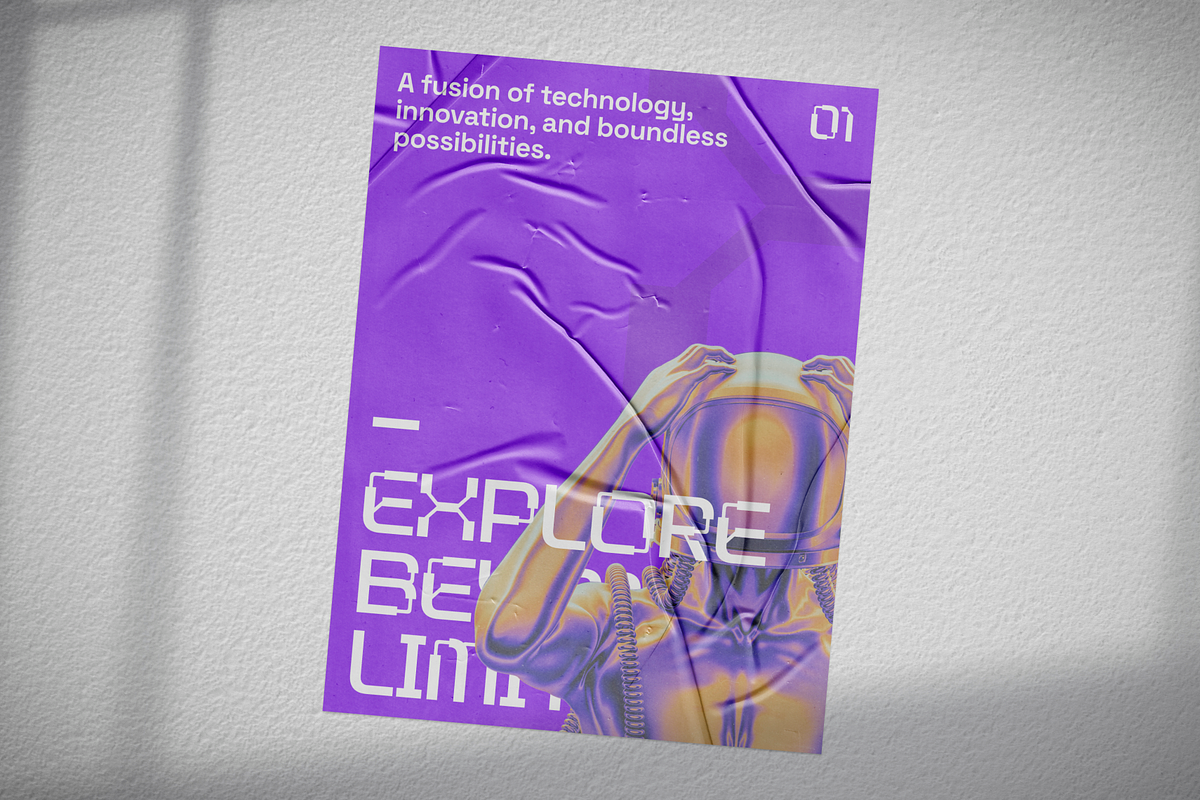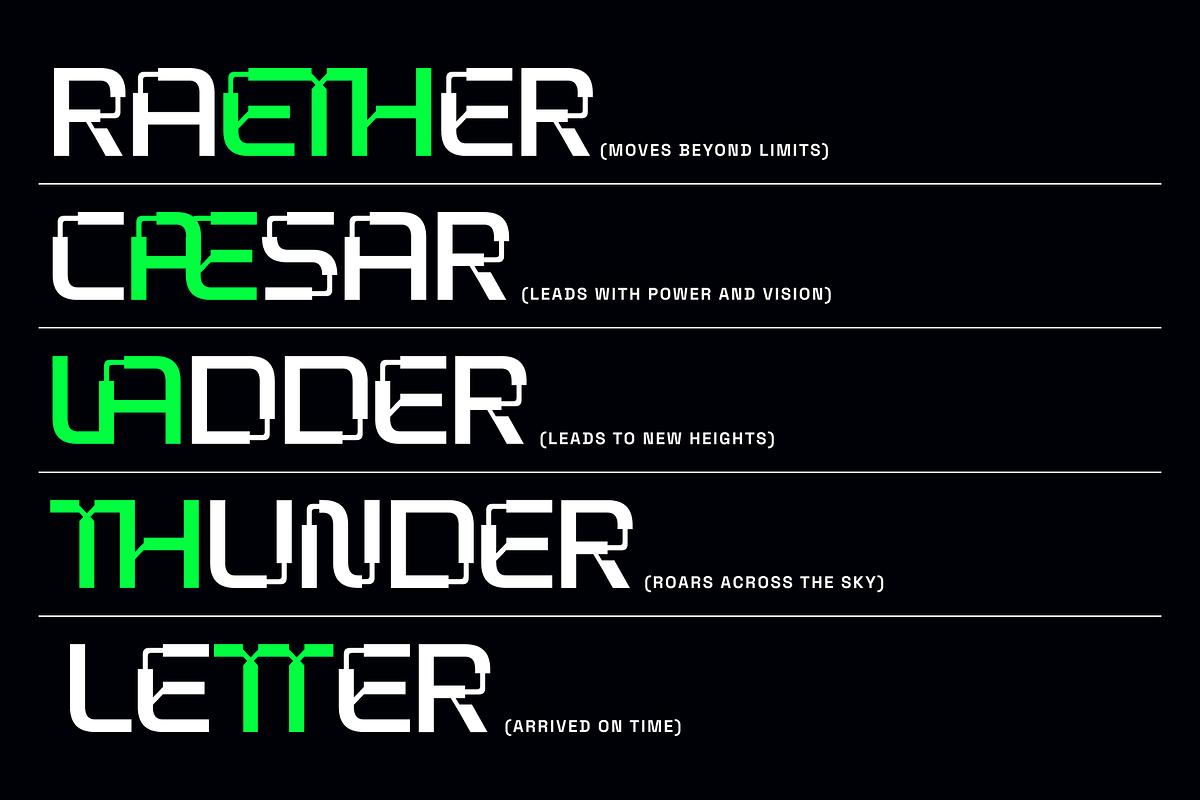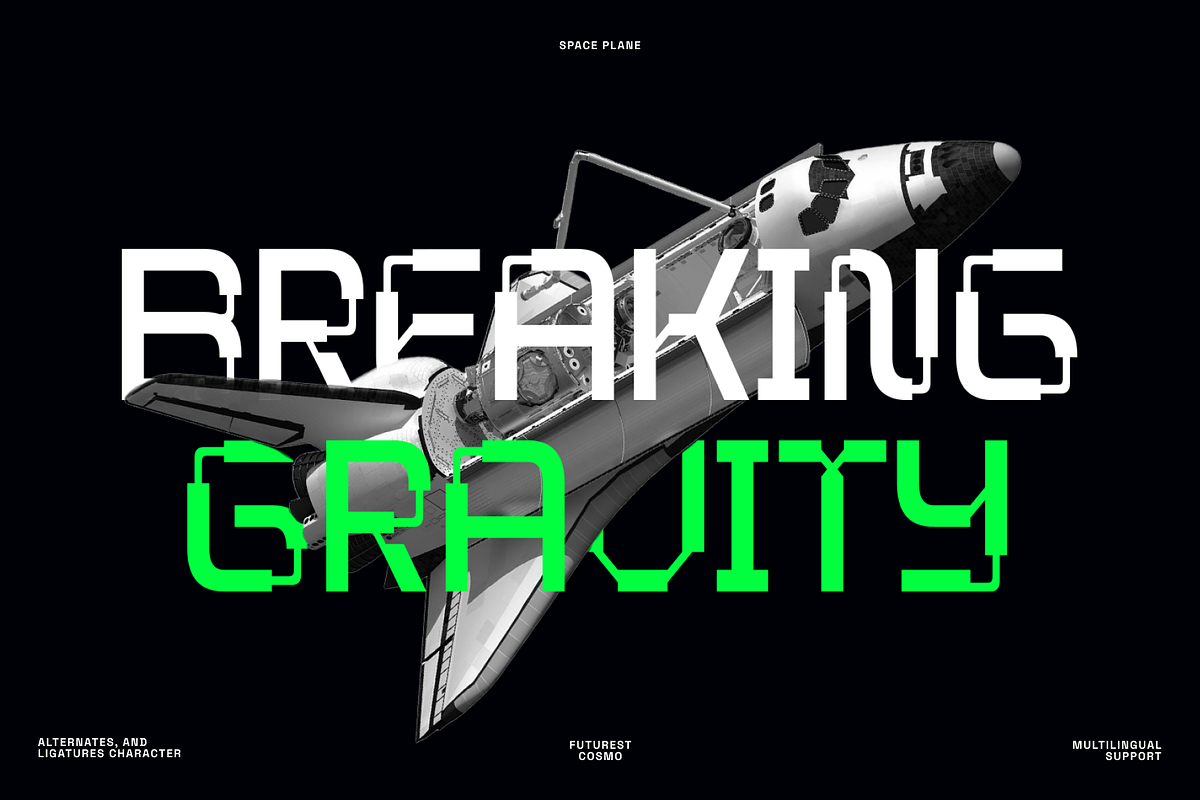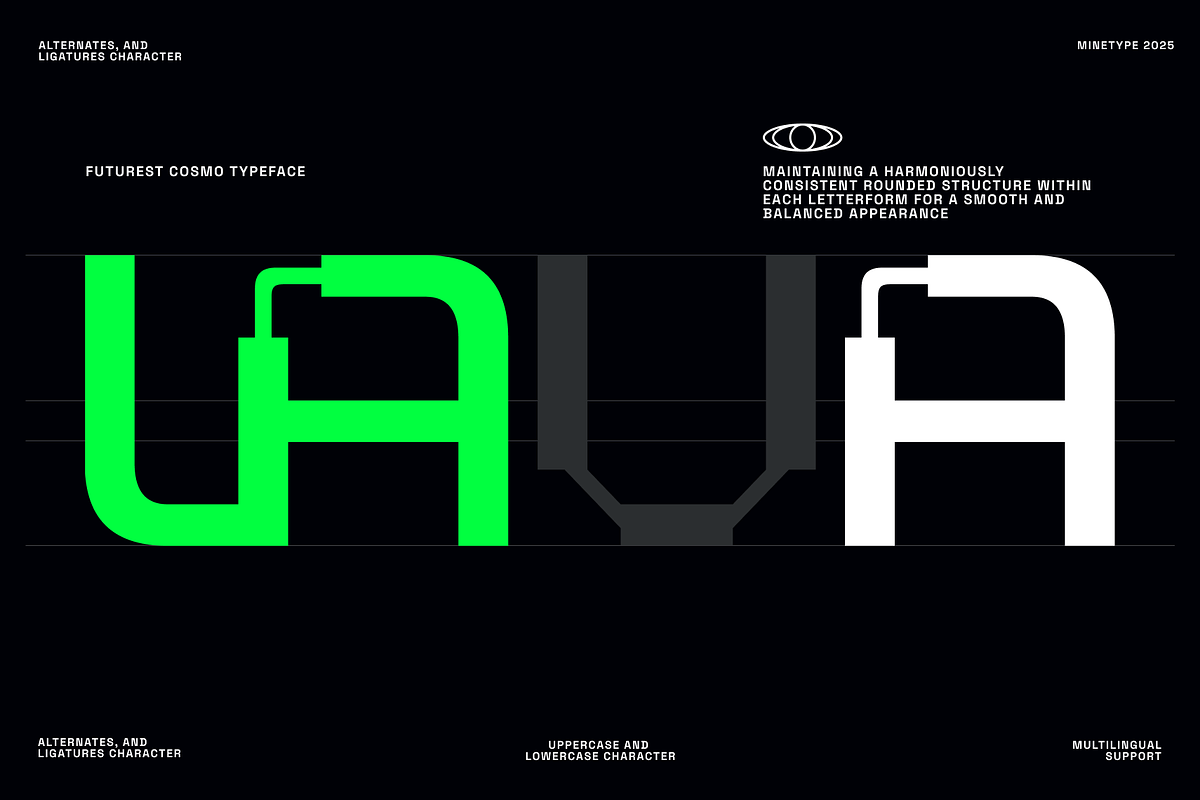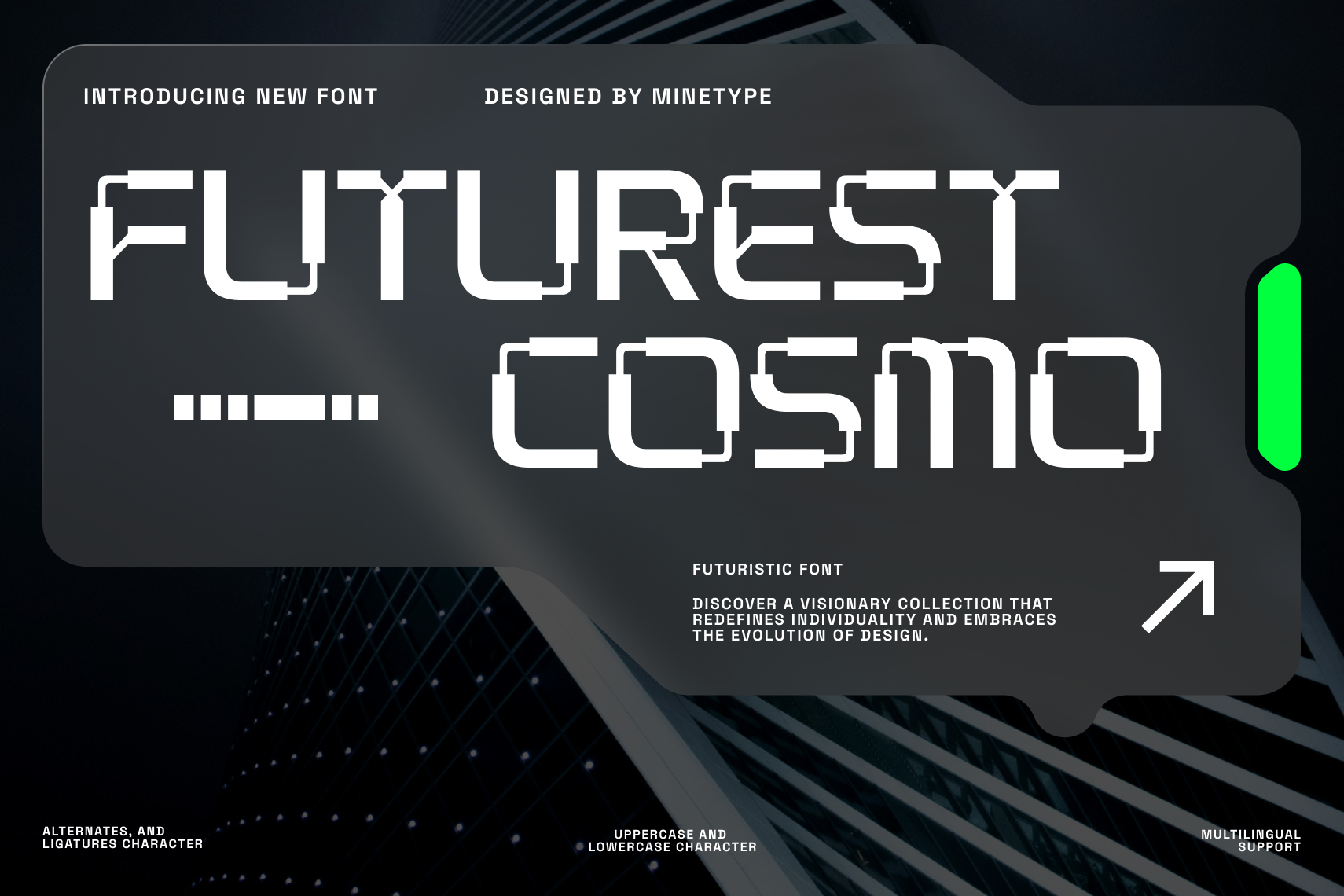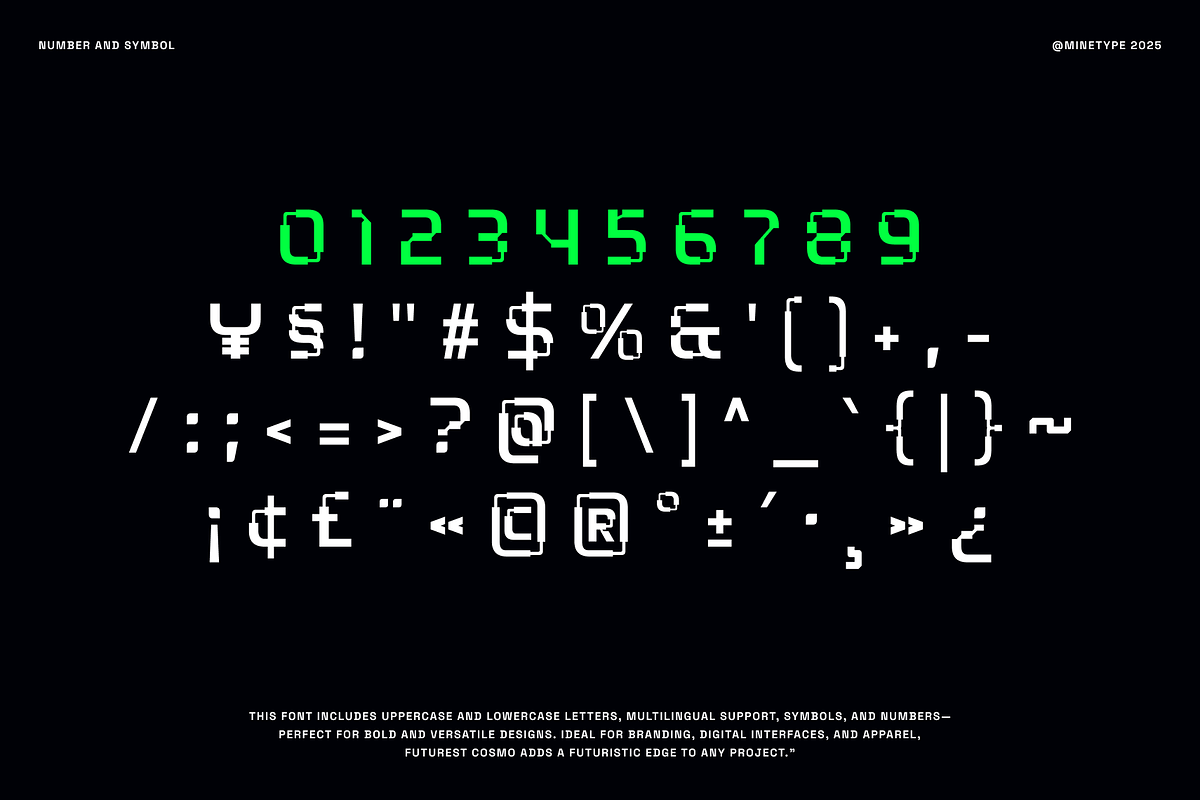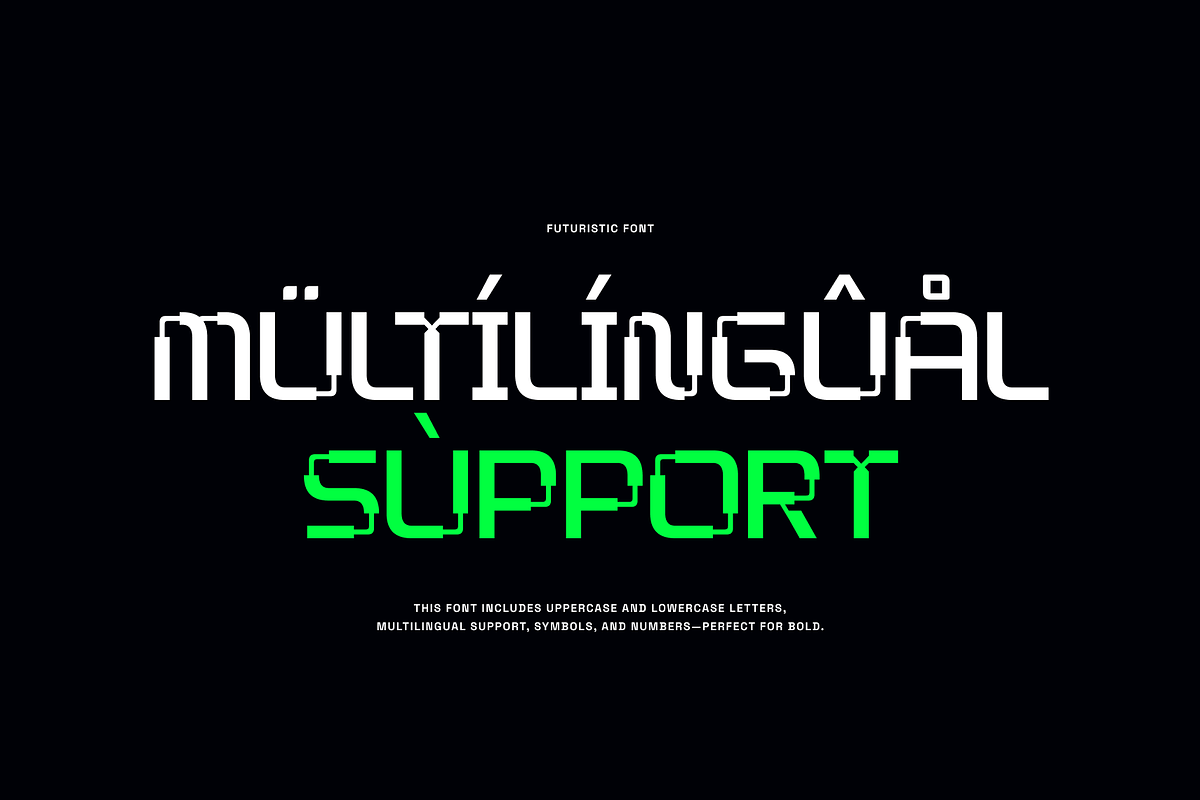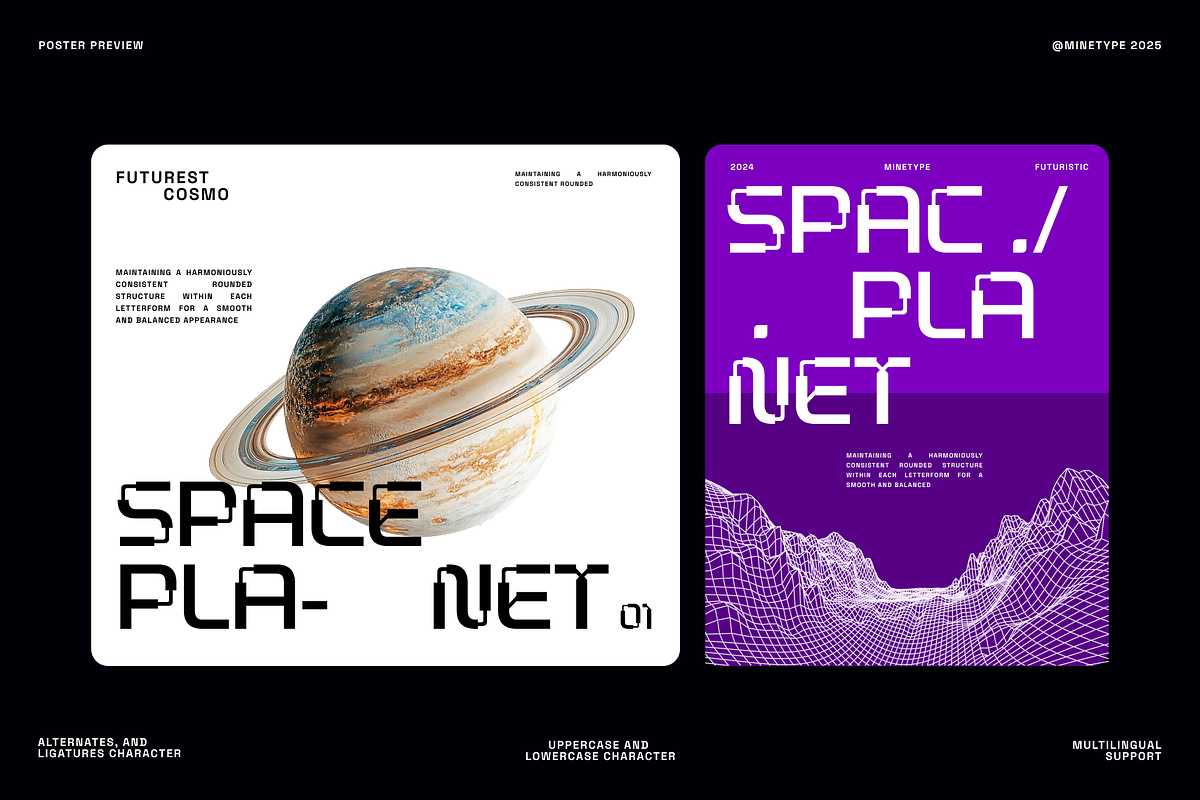
Futurest Cosmo – Futuristic Font
Futurest Cosmo – Futuristic Modern Font
Step into the future with Futurest Cosmo, a cutting-edge typeface designed for modern, high-tech, and sci-fi-inspired projects. This futuristic display font merges sleek, digital aesthetics with bold innovation, making it the perfect choice for forward-thinking designs.
Ideal for tech branding, cyberpunk themes, gaming, posters, digital interfaces, and sci-fi projects, Futurest Cosmo brings a visionary and dynamic edge to your typography. Its unique alternates and ligatures create a sense of motion, making it perfect for designs that demand a bold, high-tech, and progressive look.
- ✔ Uppercase & Lowercase Letters
- ✔ Alternates & Ligatures
- ✔ Punctuation & Symbols
- ✔ Numbers & Multilingual Support
- ✔ OpenType Features